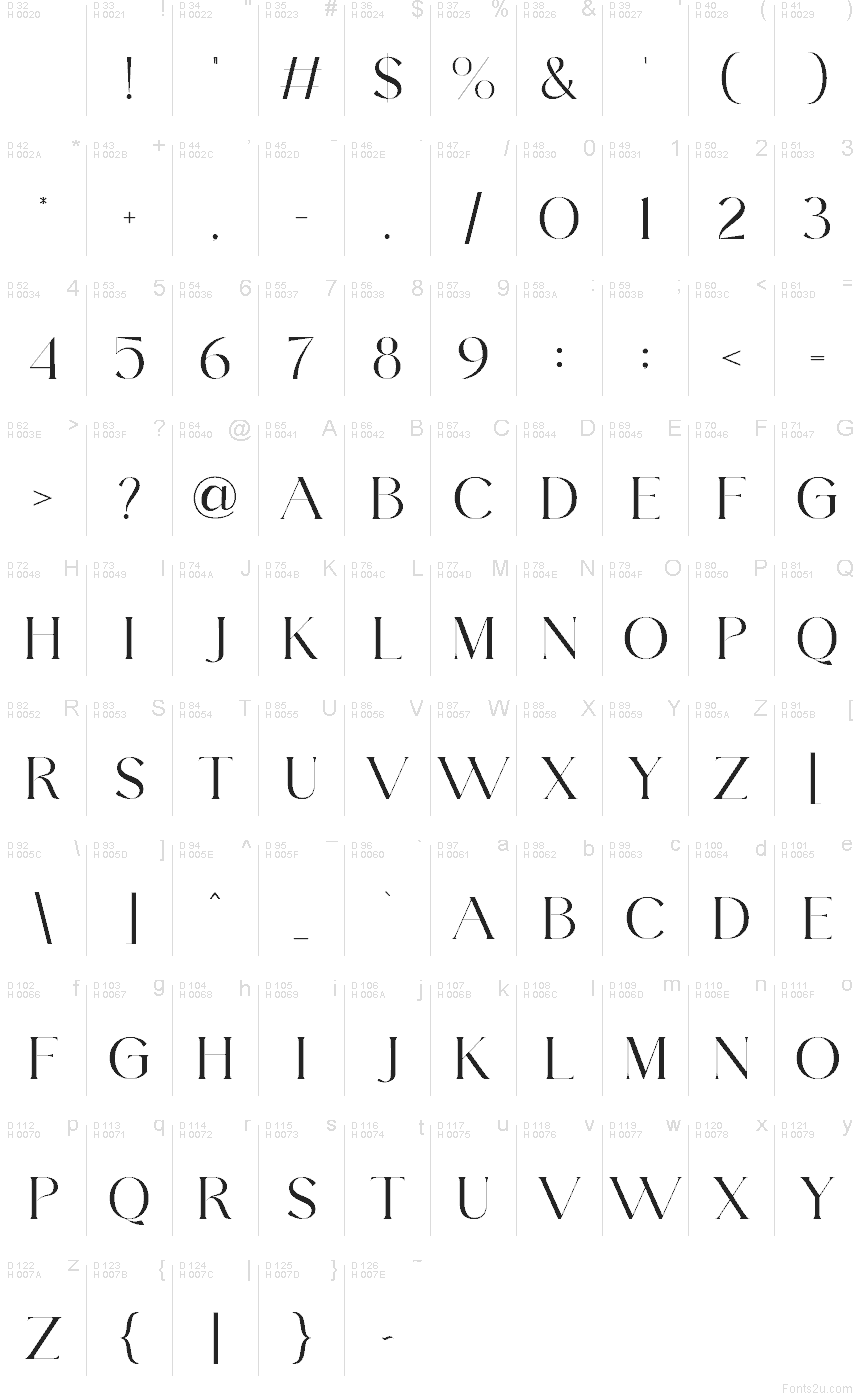
Riqater
Riqater font by ErmediStudio is a free modern serif typeface with a striking editorial edge. Tall, elegant letters are carved from fine, inky strokes that flare into unexpected curves, like the sweeping tail that anchors the Q. The result feels both refined and slightly dramatic, as if every word were styled for a fashion spread or perfume bottle.
This free font shines on luxury branding, magazine covers, fashion logos, packaging, posters, and sophisticated invitations. Using Riqater for headlines and pairing it with a simple geometric sans for smaller text keeps layouts sharp and readable while letting its graceful forms take center stage.